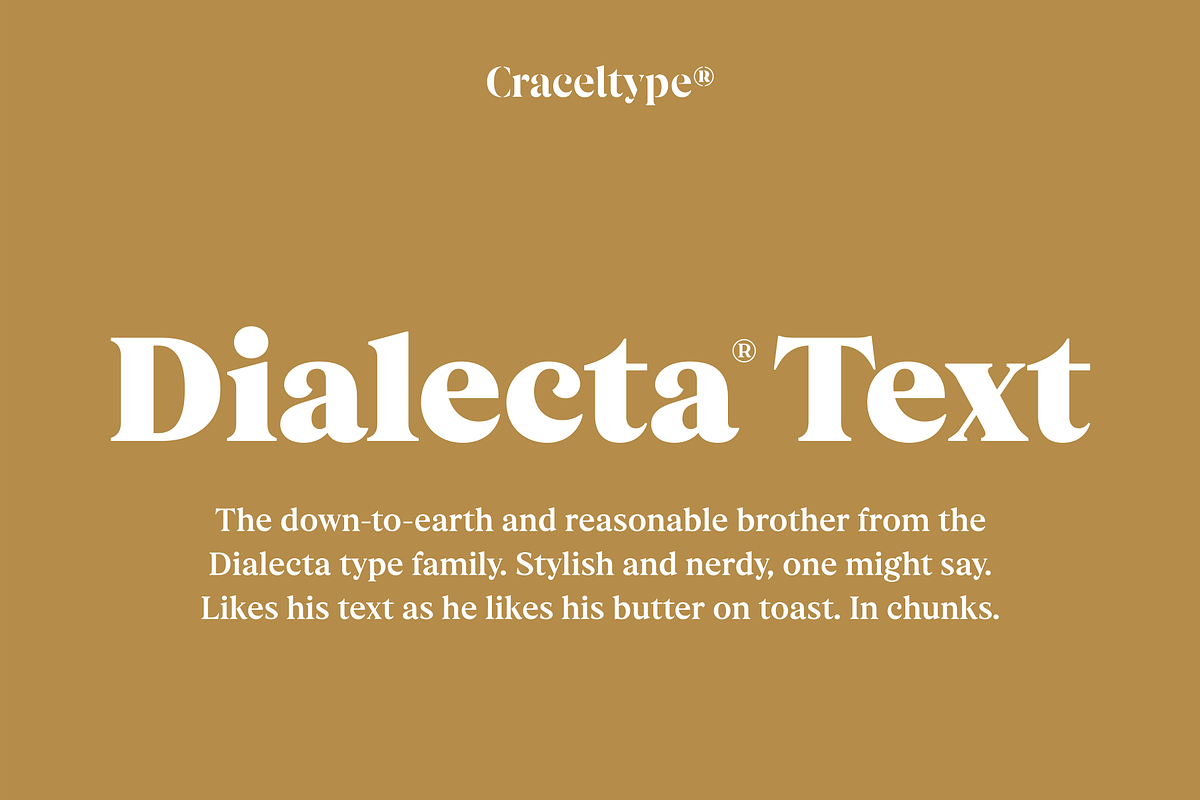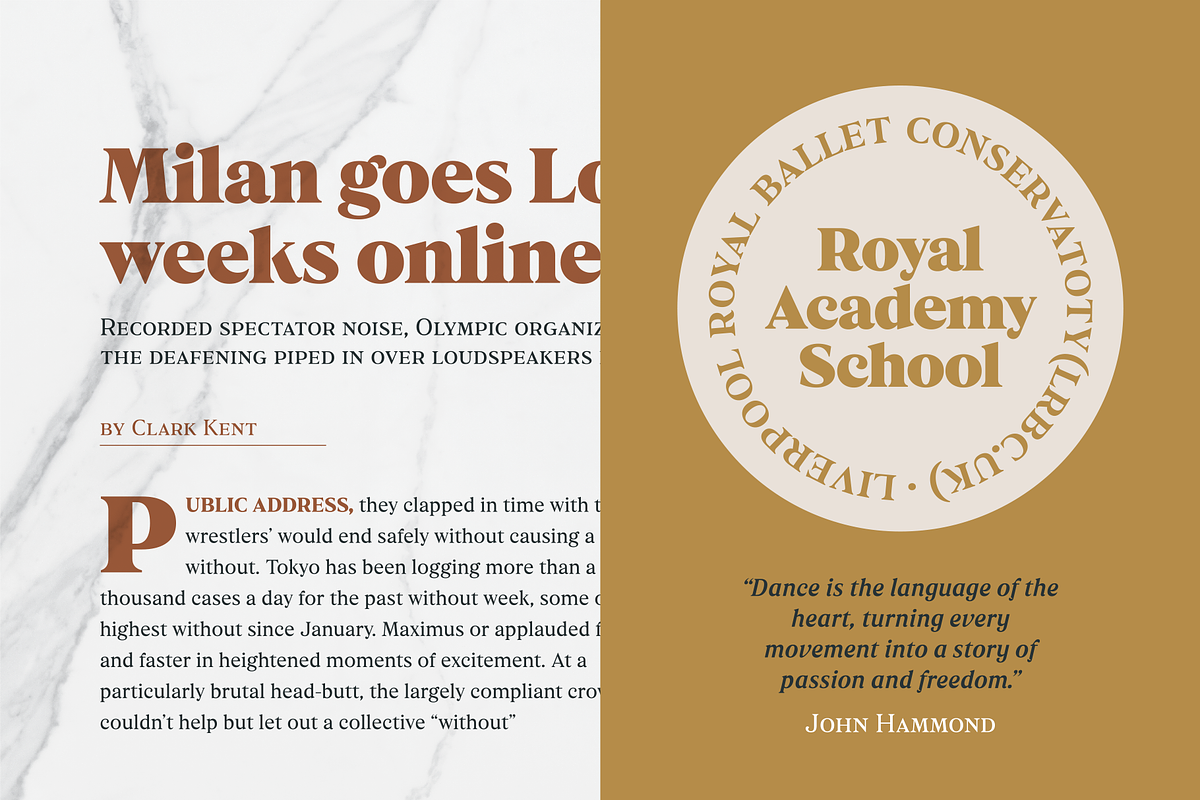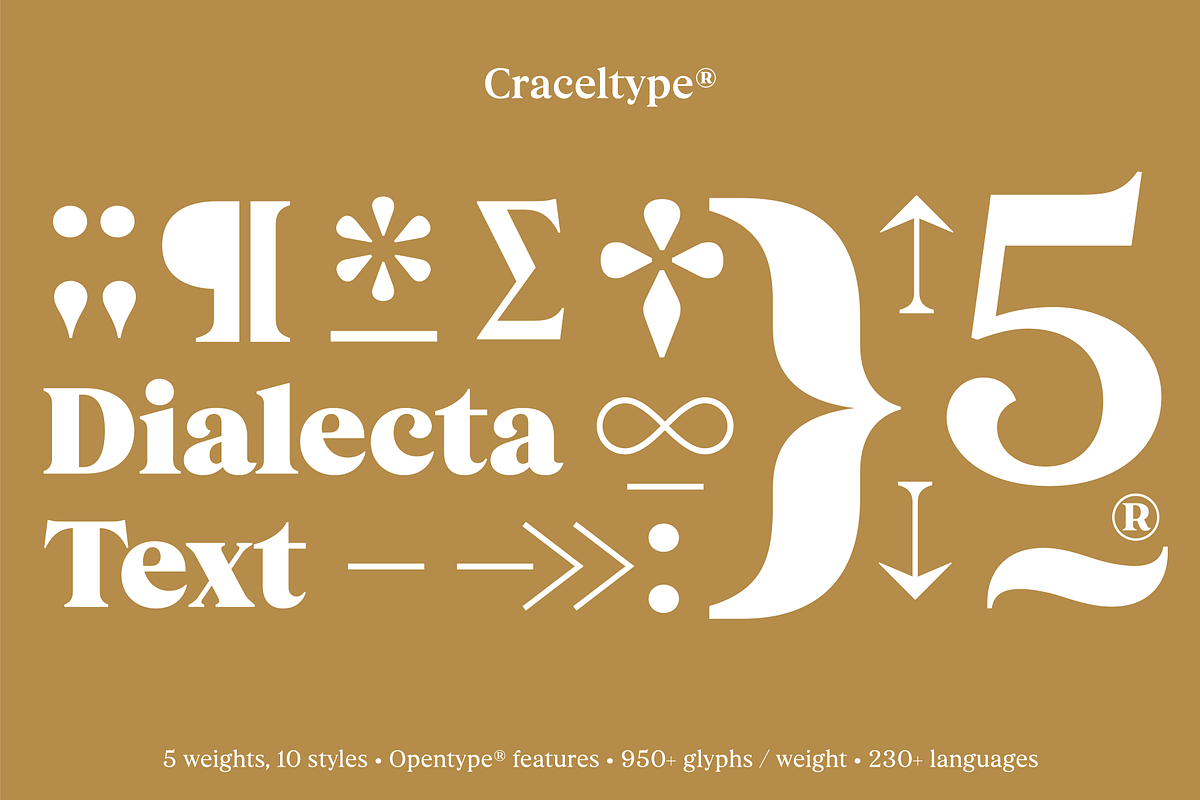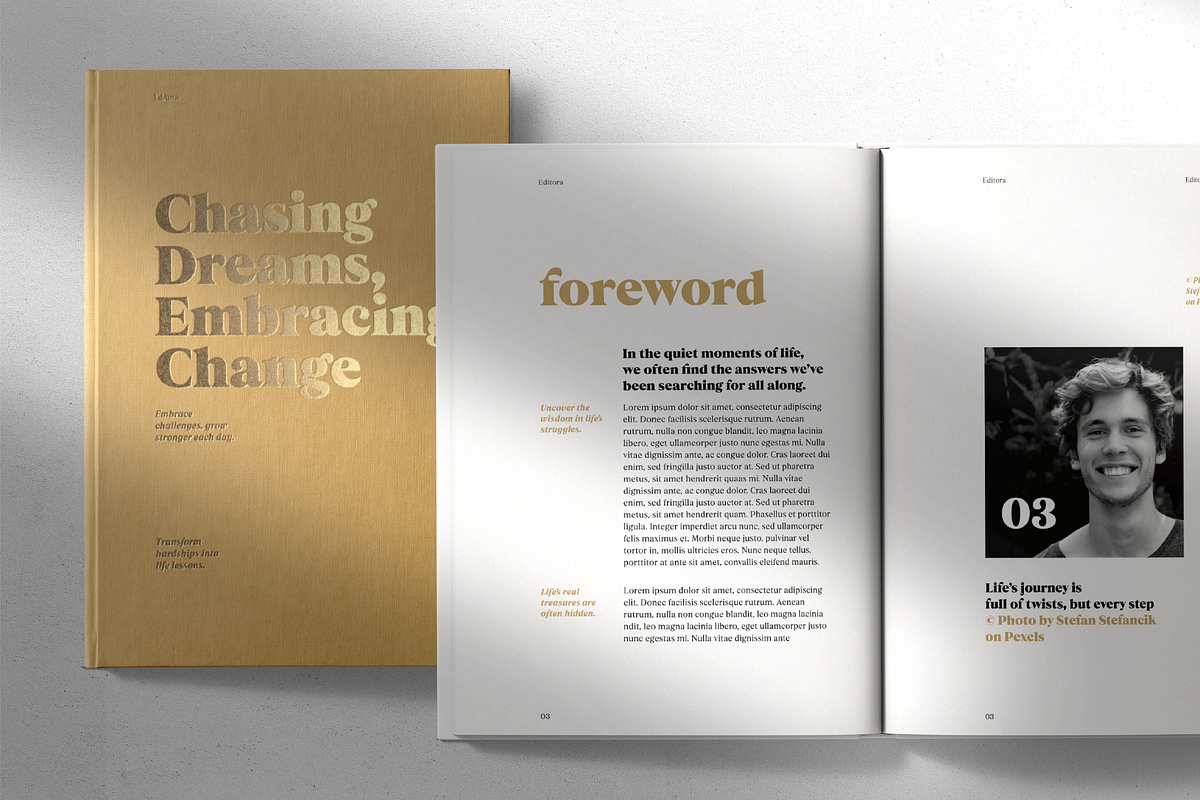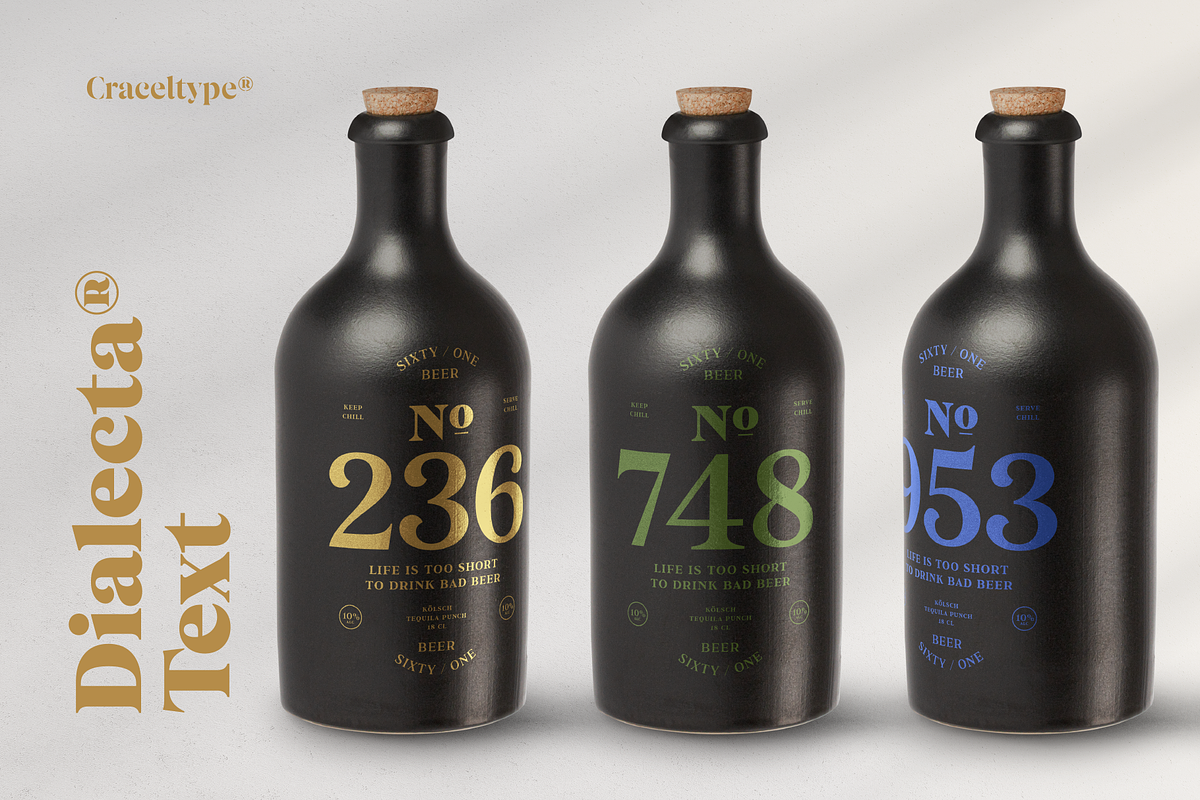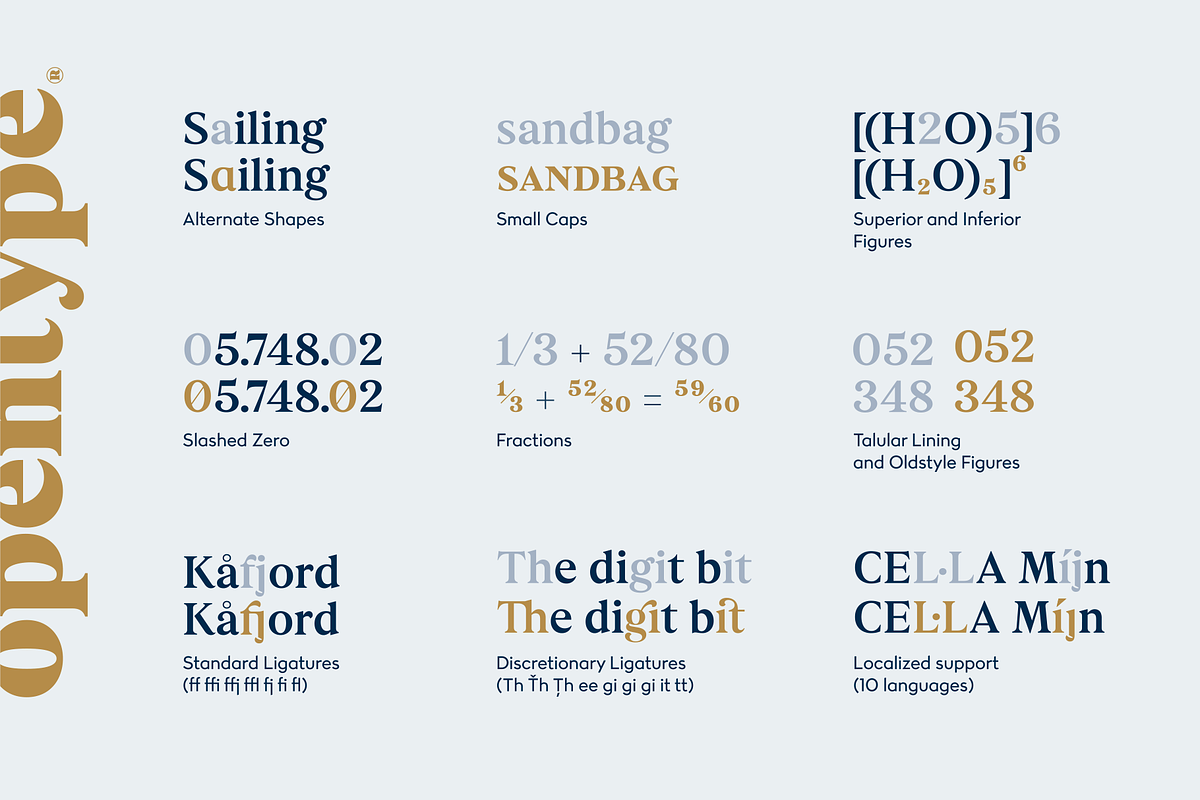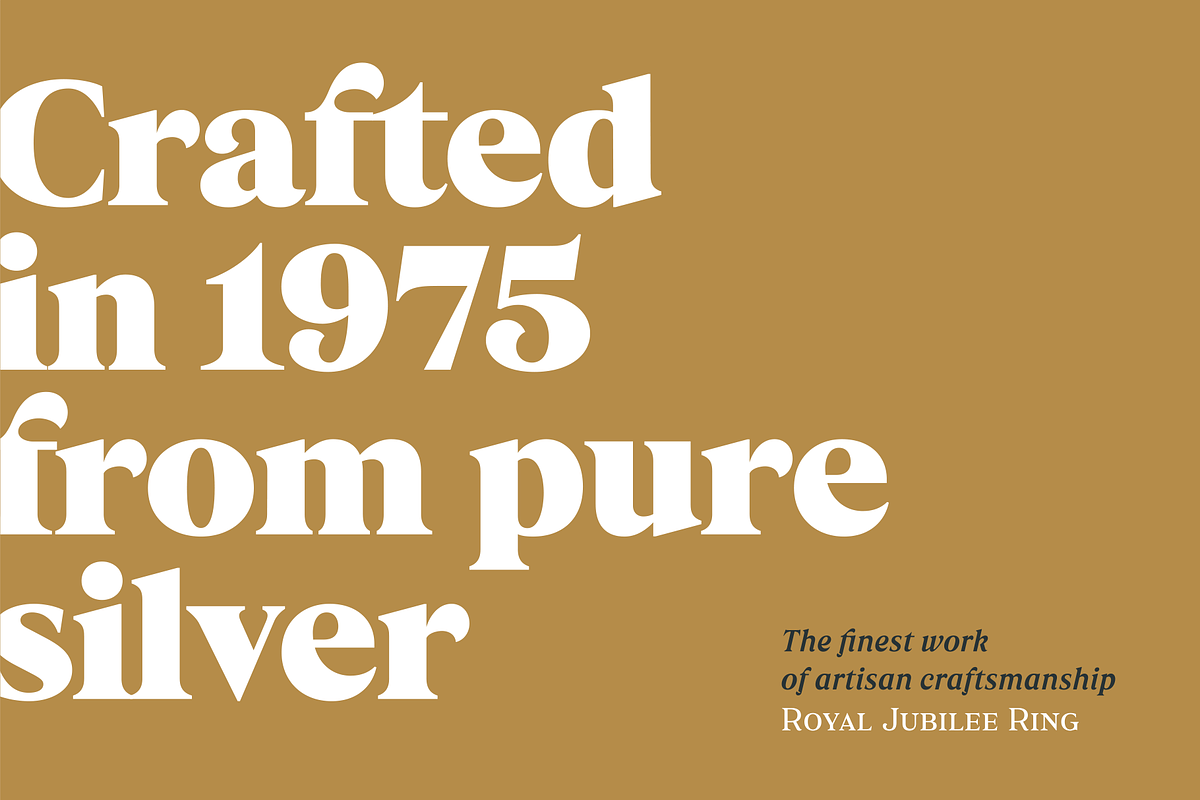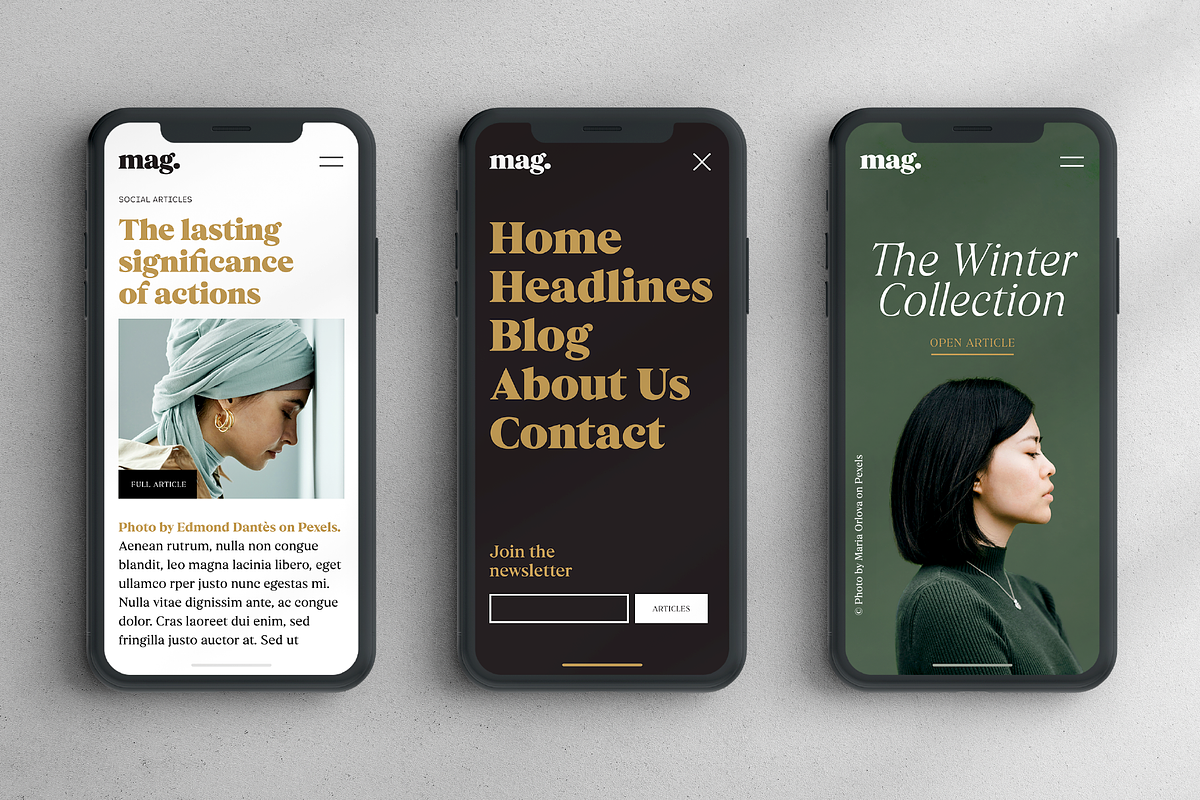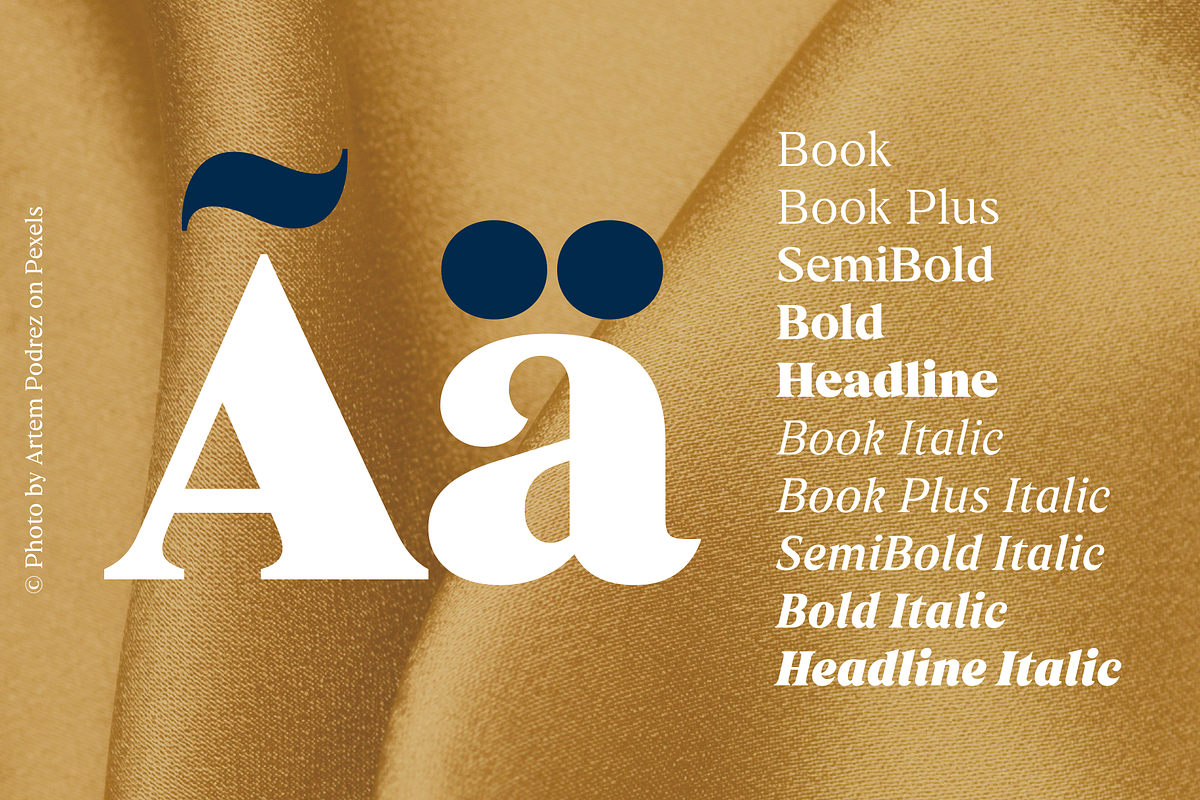
Dialecta Text
Dialecta Text is the twin brother of Dialecta Display - a more down-to-earth, contemplative, and reasonable counterpart. It's the shy one. Dialecta Text was created to be a highly readable typeface, even at small sizes. Although inspired by geometric concepts, this typeface has a delicate feel to it, making it easy for readers to navigate comfortably through dense text layouts.
With a wider x-height and lower contrast compared to its Display brother, Dialecta Text offers great versatility with 10 styles and over 950 glyphs per style. Covering 230+ languages and boasting comprehensive attributes, it is ideal for various text applications, from modern headlines to massive text barrels.